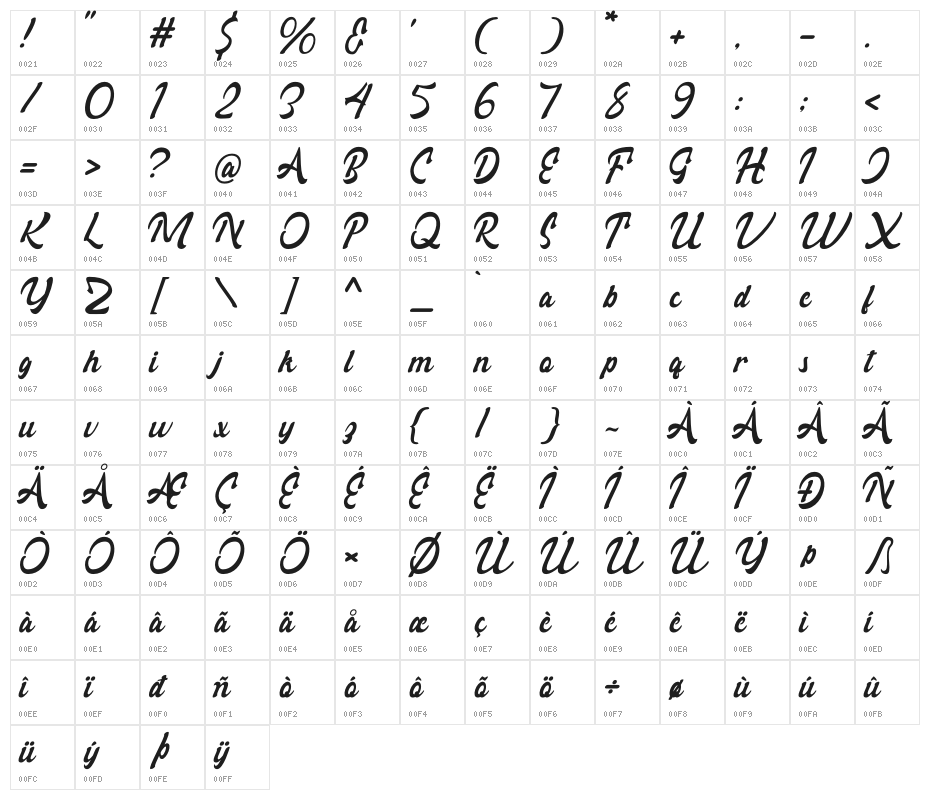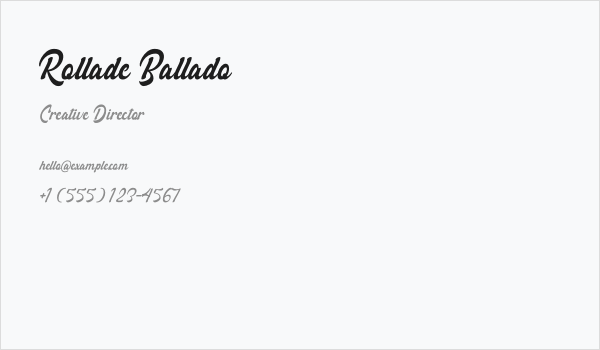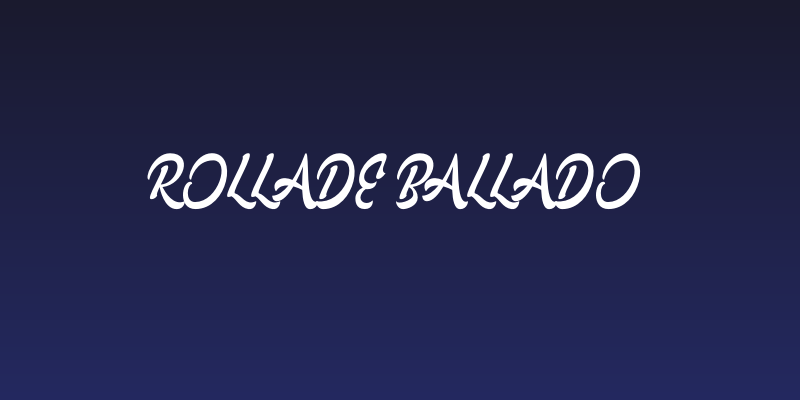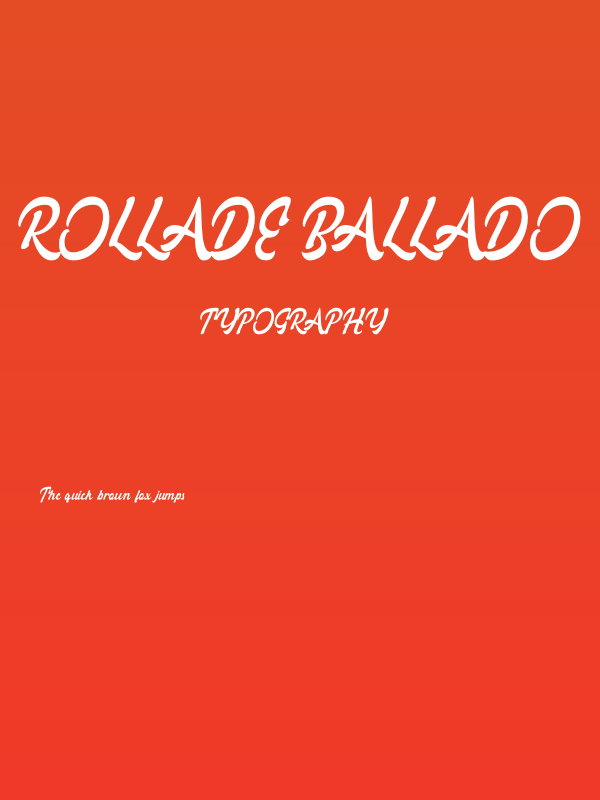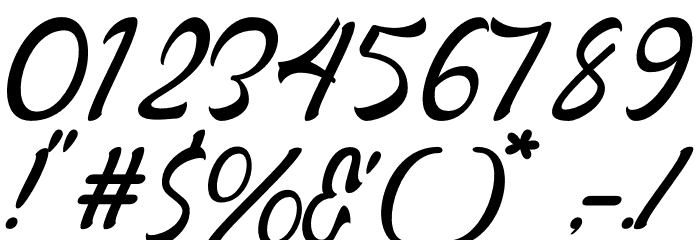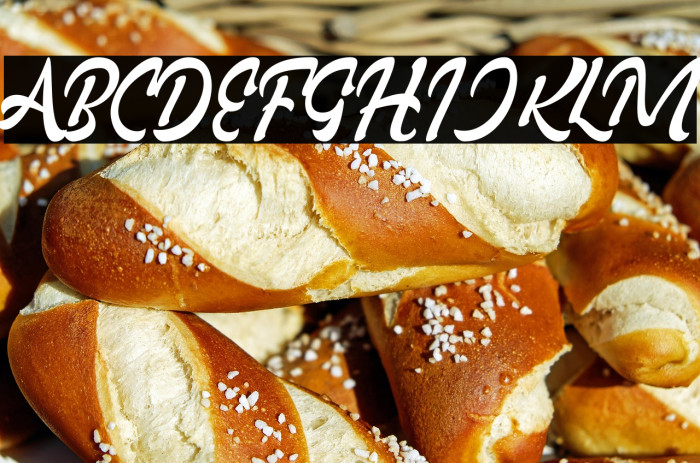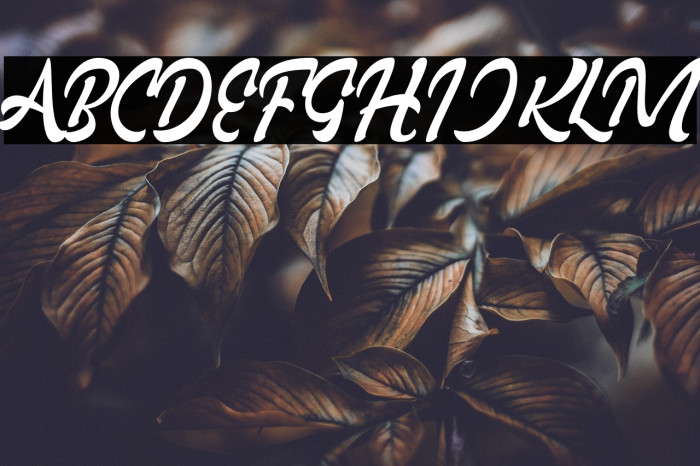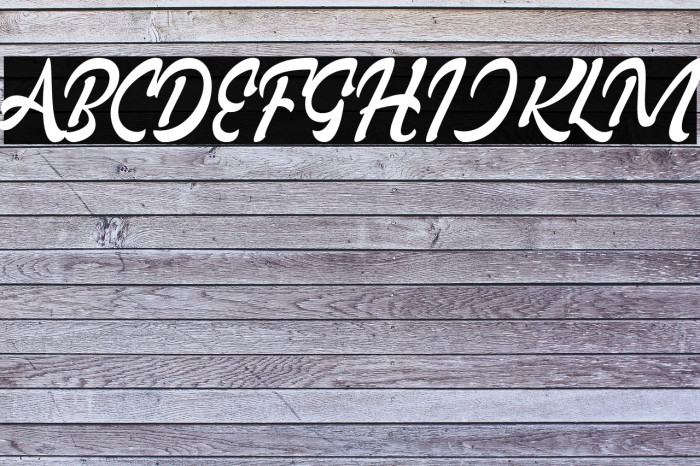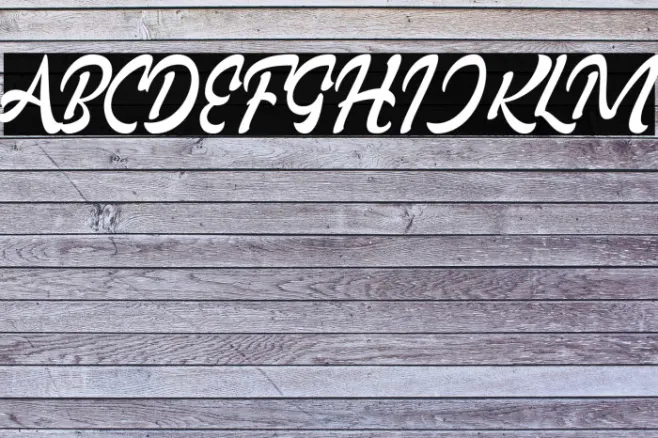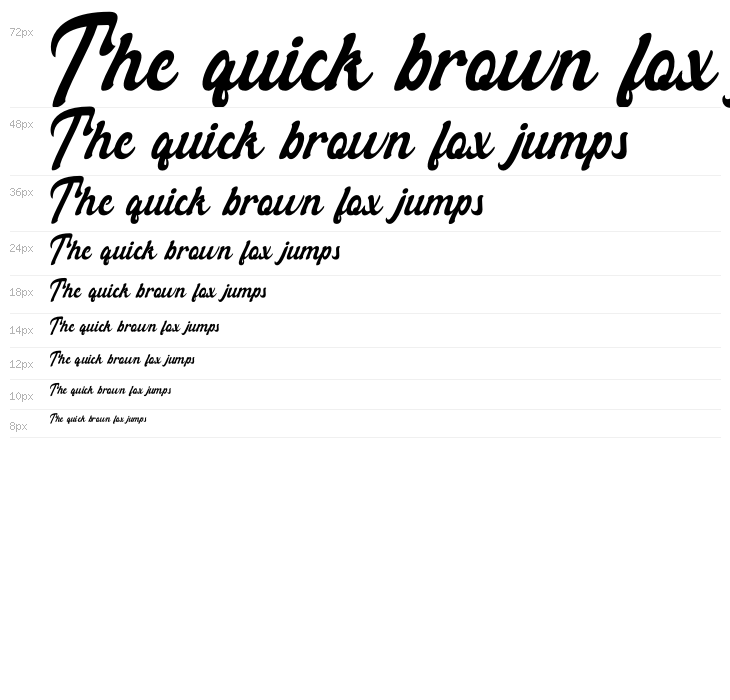
Rollade Ballado Font
Rollade Ballado Description
This font features a flowing, cursive style with smooth, rounded edges and a consistent stroke width. The uppercase letters are elegantly connected, while the lowercase letters maintain a harmonious flow, making it ideal for creating a sense of movement and grace. The numerals and special characters are designed to complement the overall script style, adding a touch of sophistication. The font's design is both classic and versatile, suitable for a variety of applications where a personal, handwritten touch is desired.